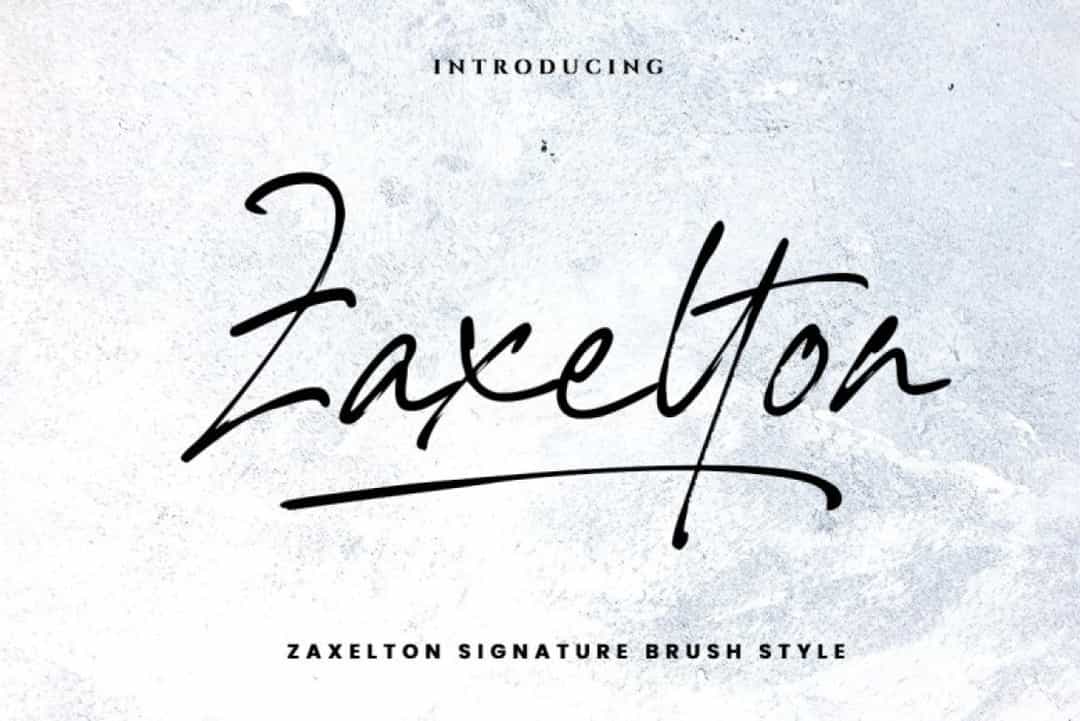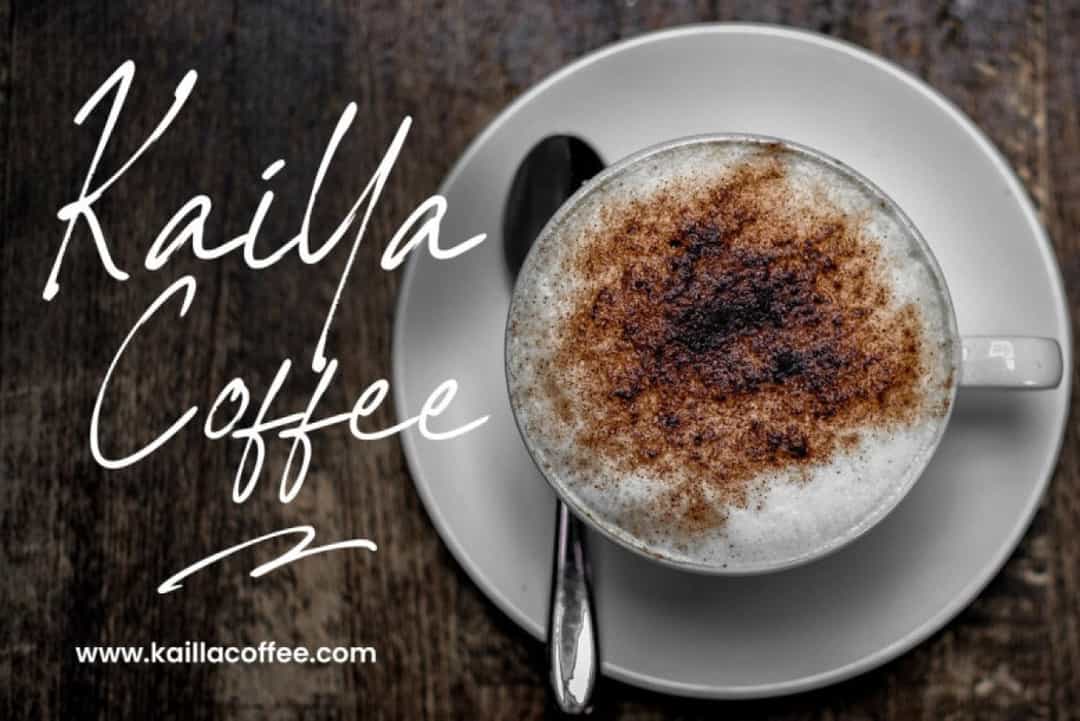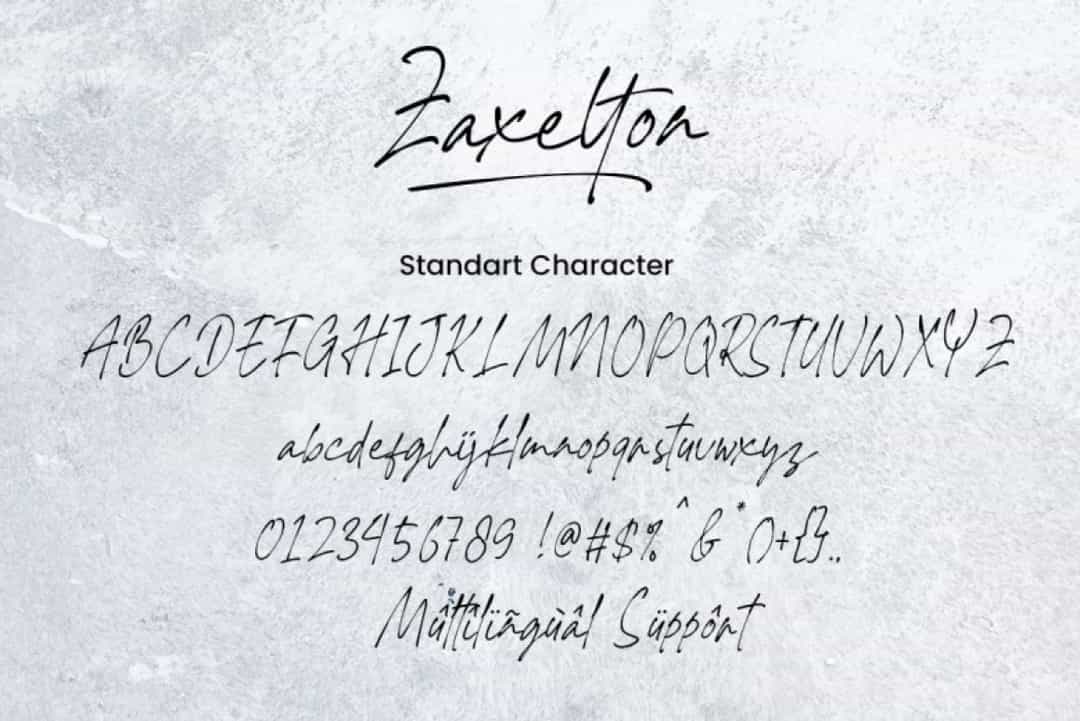
Zaxelton is an exquisite brush trademark font. Boasting both modernity and relaxation, use Zaxelton to bring your DIY idea to fruition! Being PUA encoded means that all its fantastic ligatures and glyphs can be utilized easily!